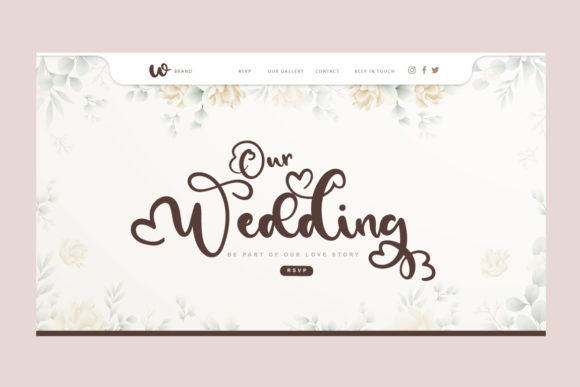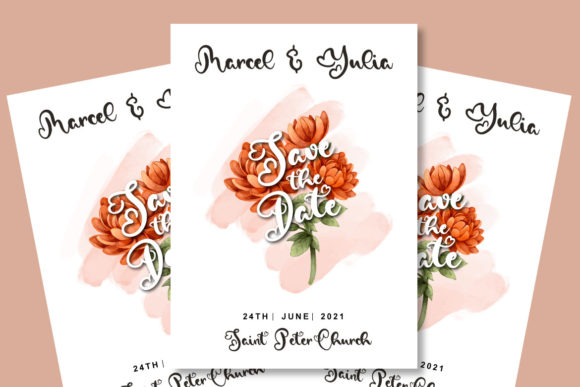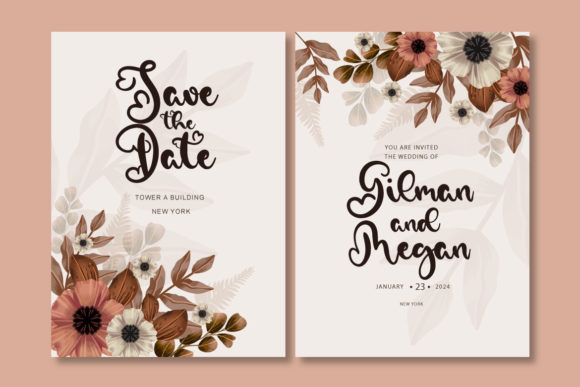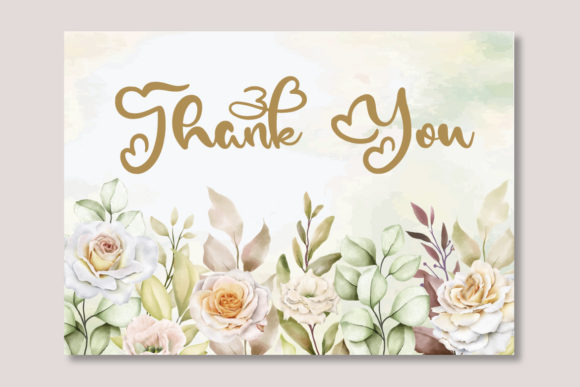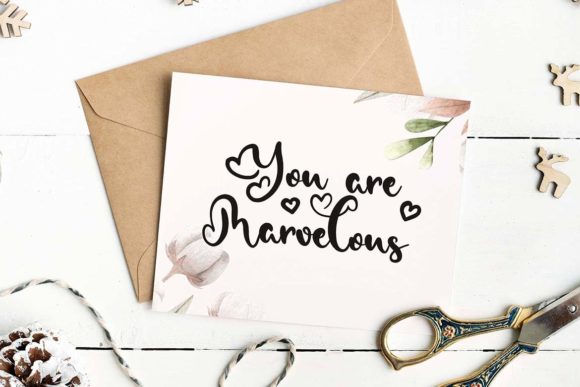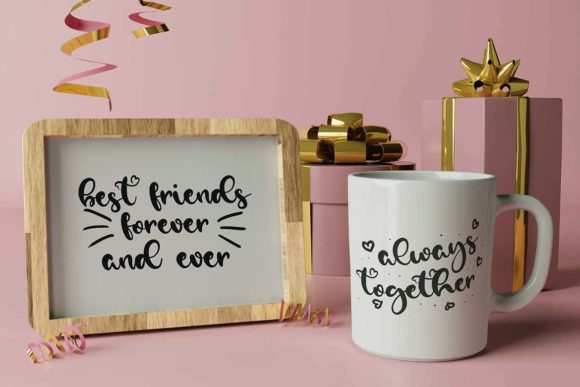
The Magic of Gashyna Font: Elevating Designs with Elegance
I’ll never forget the time I was working on a wedding invitation project, and my client asked for a font that exuded luxury and romance. I scoured the internet, tried out countless fonts, but nothing seemed quite right. That was until I stumbled upon Gashyna Font. Its elegant, calligraphic strokes danced along the baseline, capturing the essence of sophistication and whimsy. In that moment, I knew I’d found the perfect fit. ✨
An Honest Review of Gashyna Font
- 💃 Romantic and sweet calligraphy style that’s perfect for luxury designs
- ✅ Elegant characters that dance along the baseline, adding a touch of whimsy
- 🎉 Highly versatile and pairs well with a variety of design elements
- 💻 OpenType features, glyphs, and stylistic alternates for added creativity
While Gashyna Font is a stunning addition to any design project, there are a few things to keep in mind: 🤔
- ⚠️ Limited use in very formal or corporate designs, as it may come across as too ornate
- ⚠️ May not be suitable for body text, as it’s best used for headlines or titles
The Designer Inspiration Behind Gashyna Font
While the true story behind Gashyna Font’s creation is unknown, it’s easy to imagine a designer inspired by the romance and elegance of handwritten calligraphy. Perhaps they wanted to create a font that would evoke feelings of luxury and sophistication, while still being approachable and whimsical.
Q: What type of designs is Gashyna Font best suited for?
A: Gashyna Font is perfect for luxury designs, such as wedding invitations, branding materials, and high-end advertising.
Q: Can I use Gashyna Font for body text?
A: While Gashyna Font is beautiful, it’s best used for headlines or titles. For body text, a clearer font may be more suitable.
Q: Does Gashyna Font support OpenType features?
A: Yes, Gashyna Font supports OpenType features, including ligatures, stylistic alternates, and glyphs.